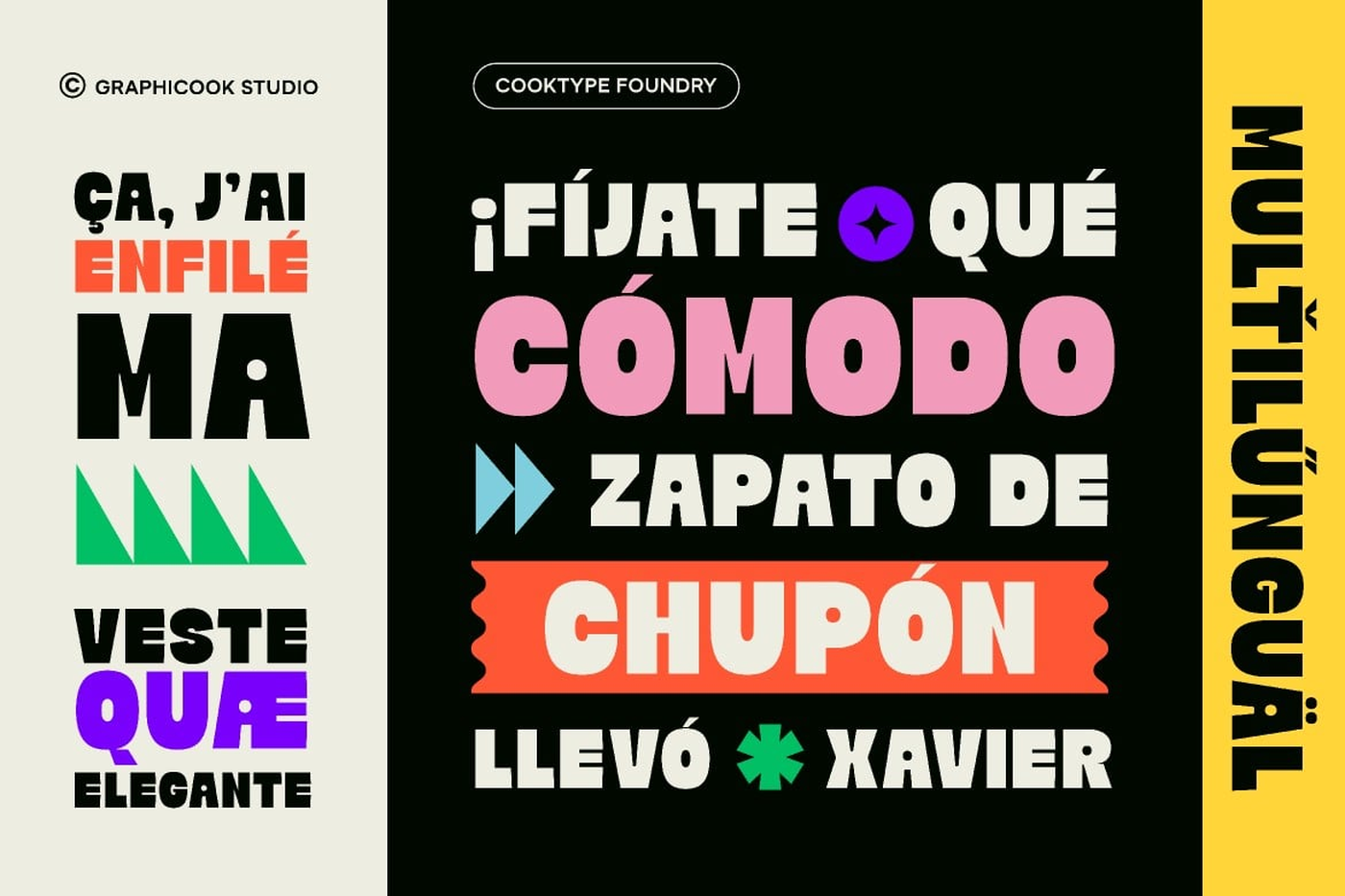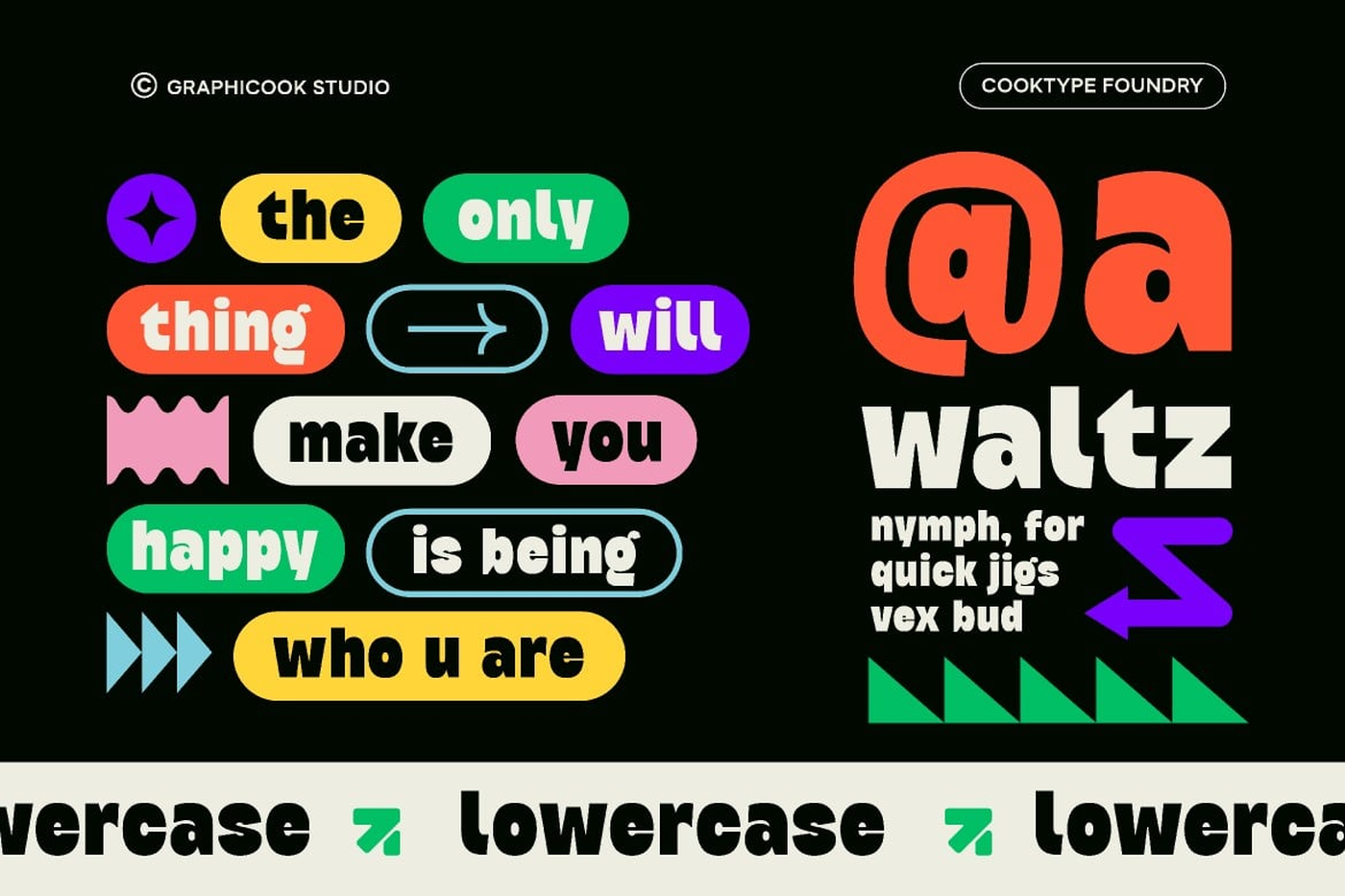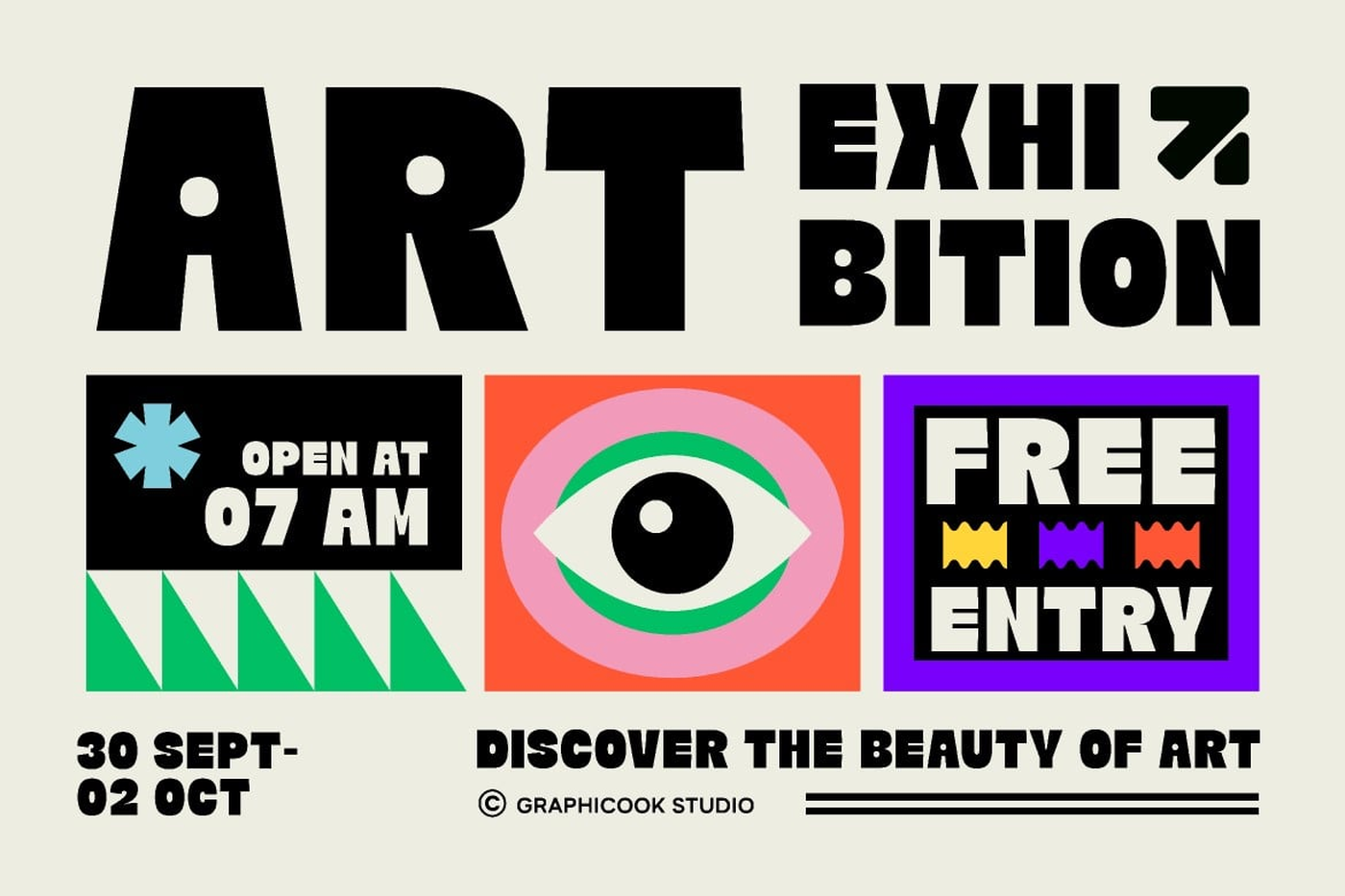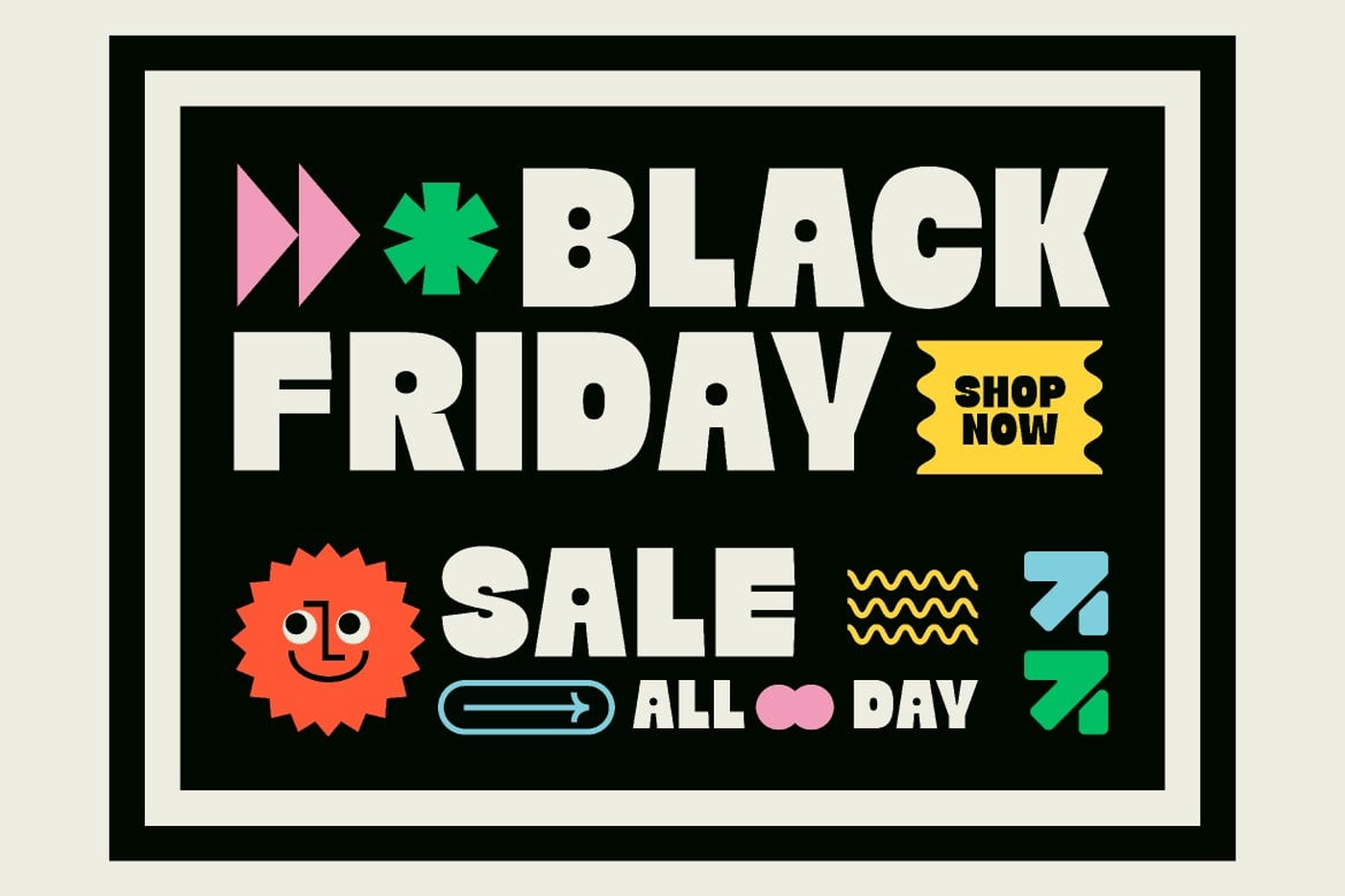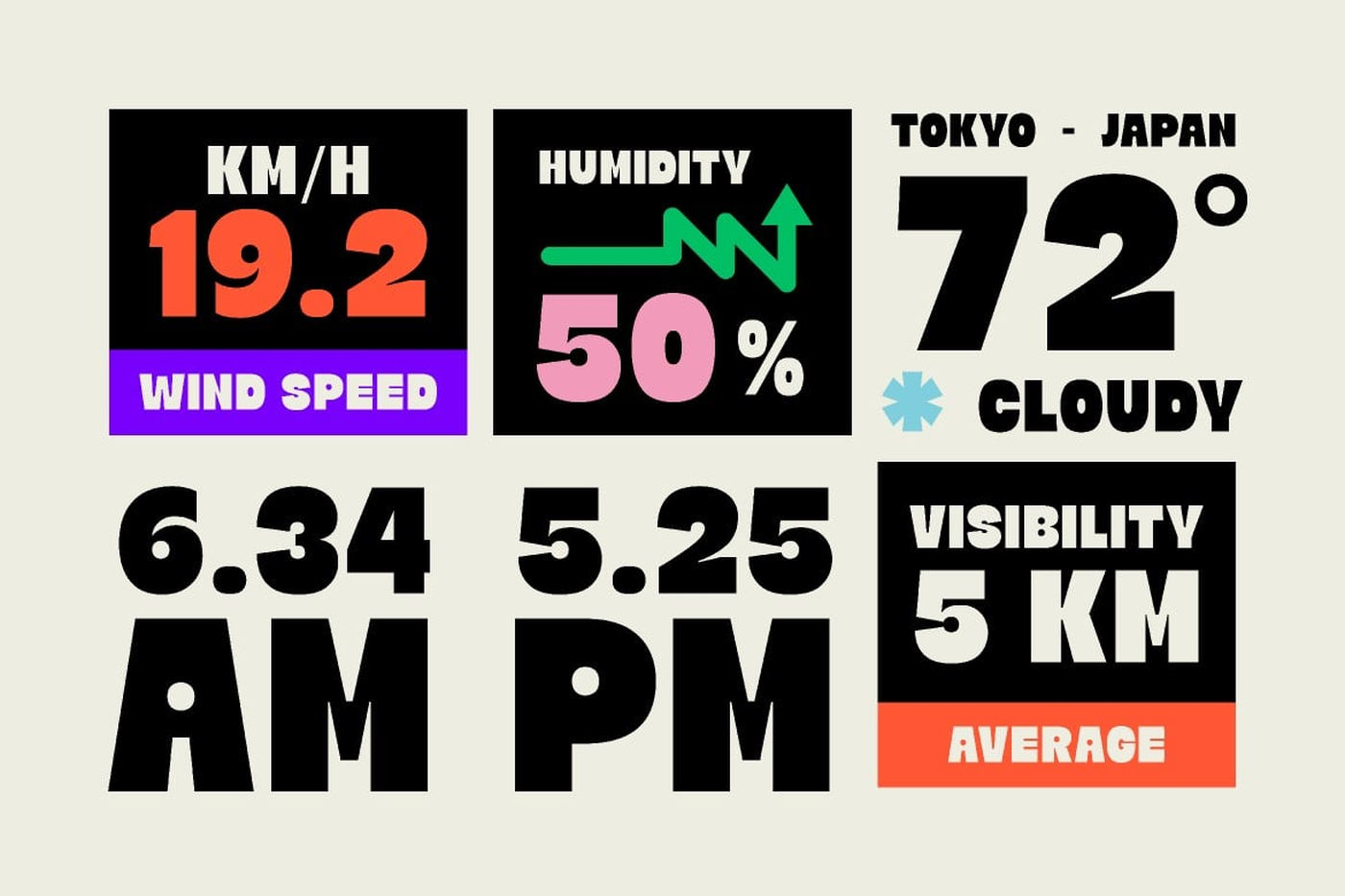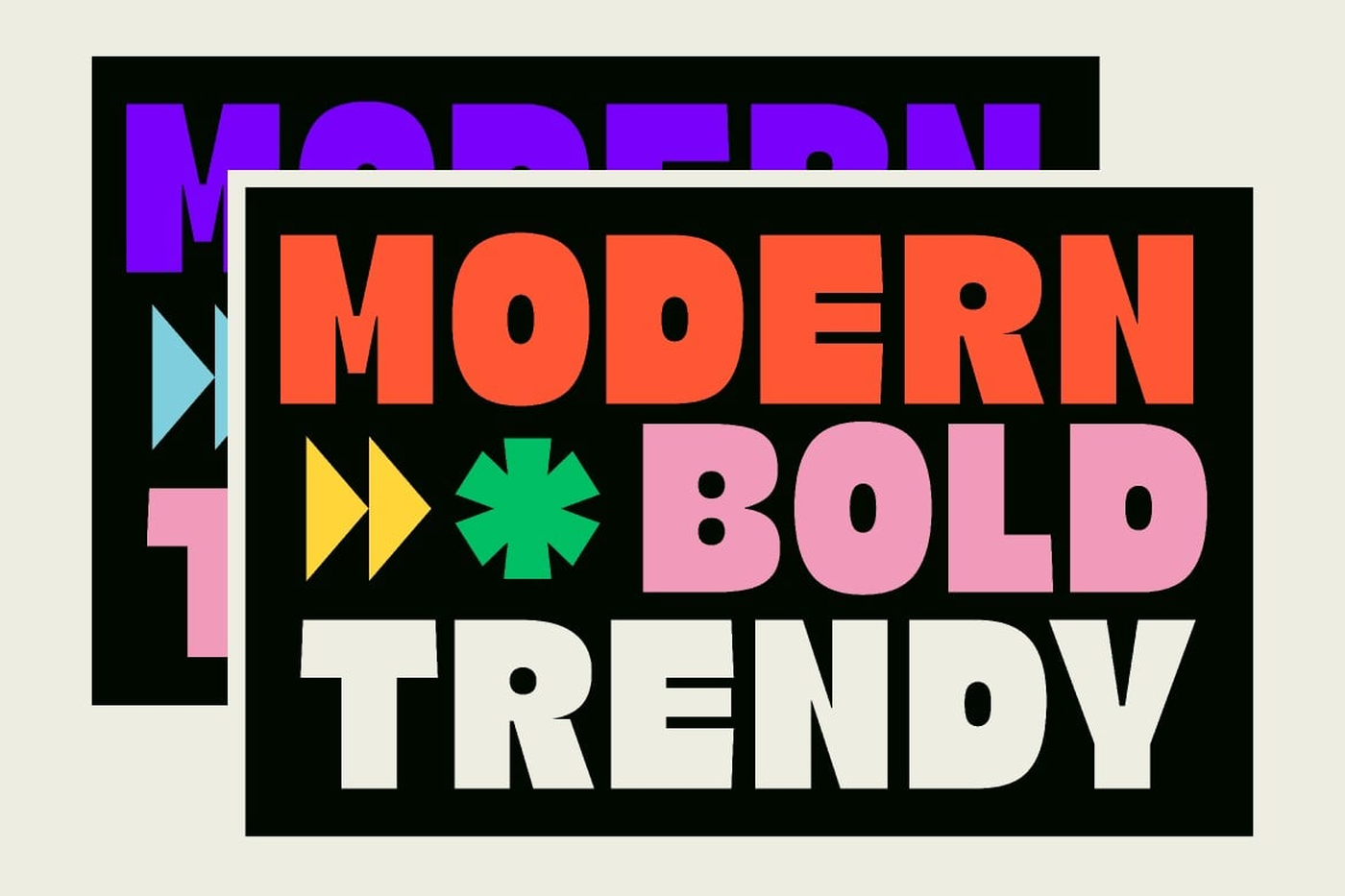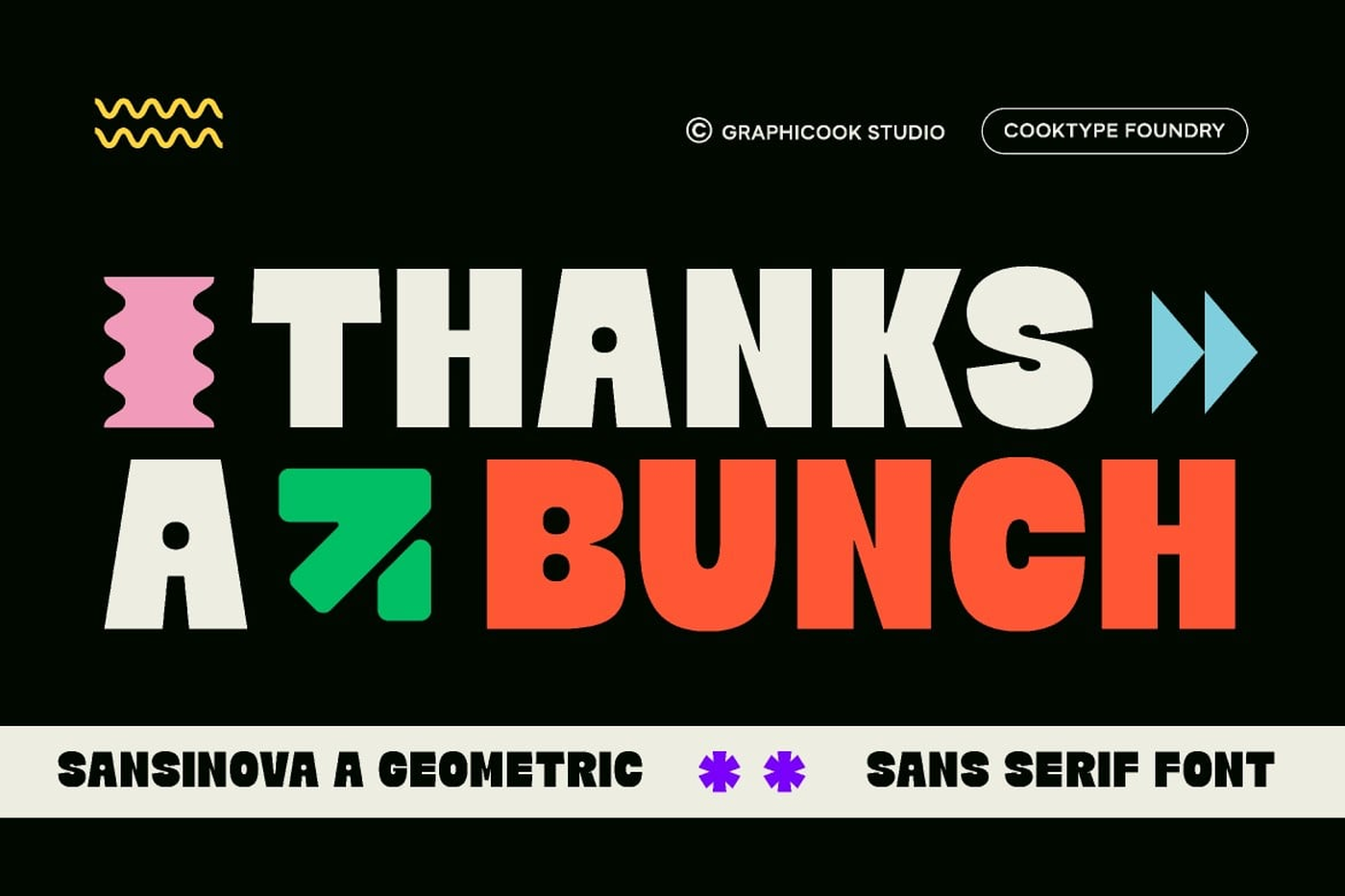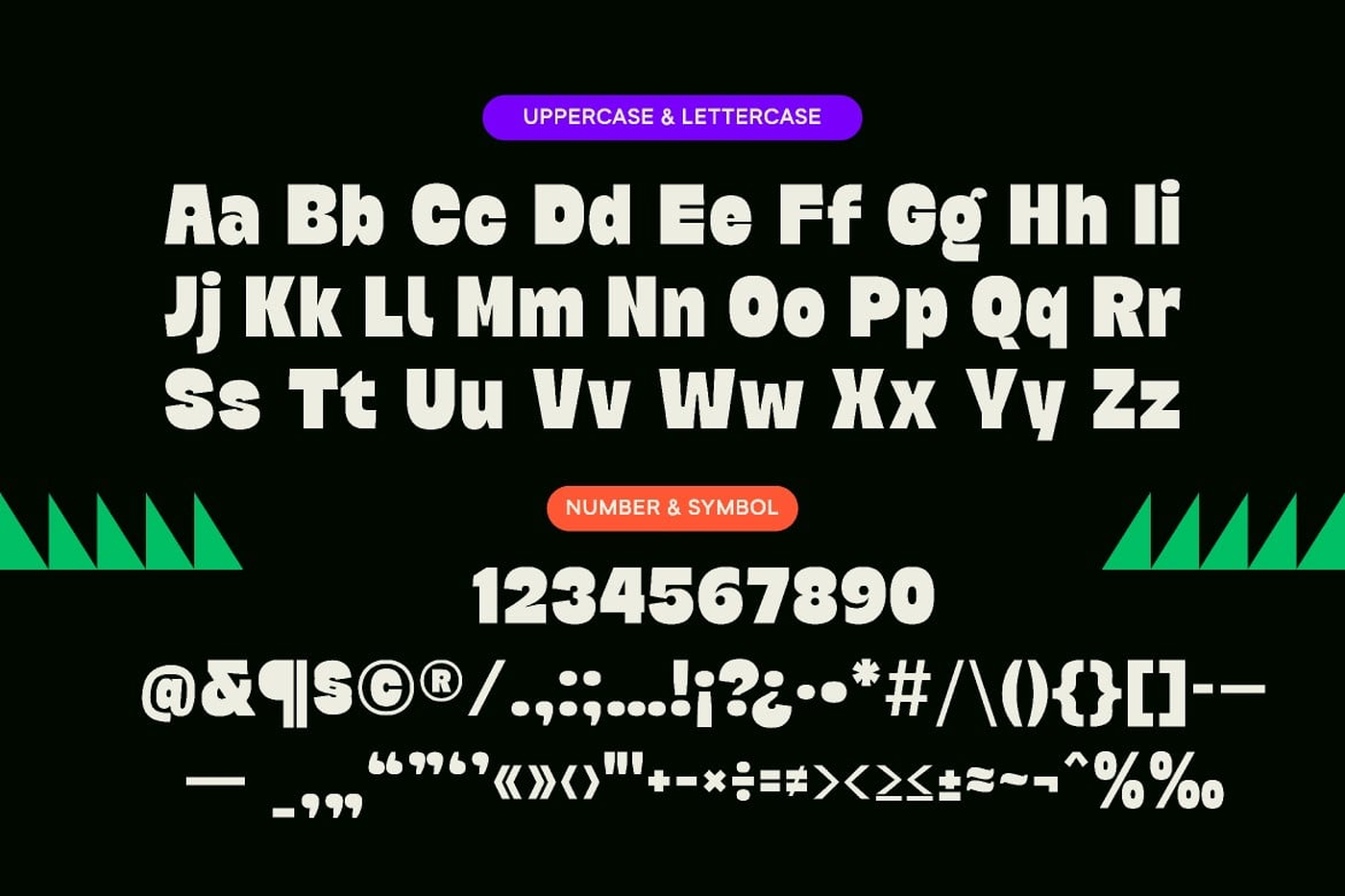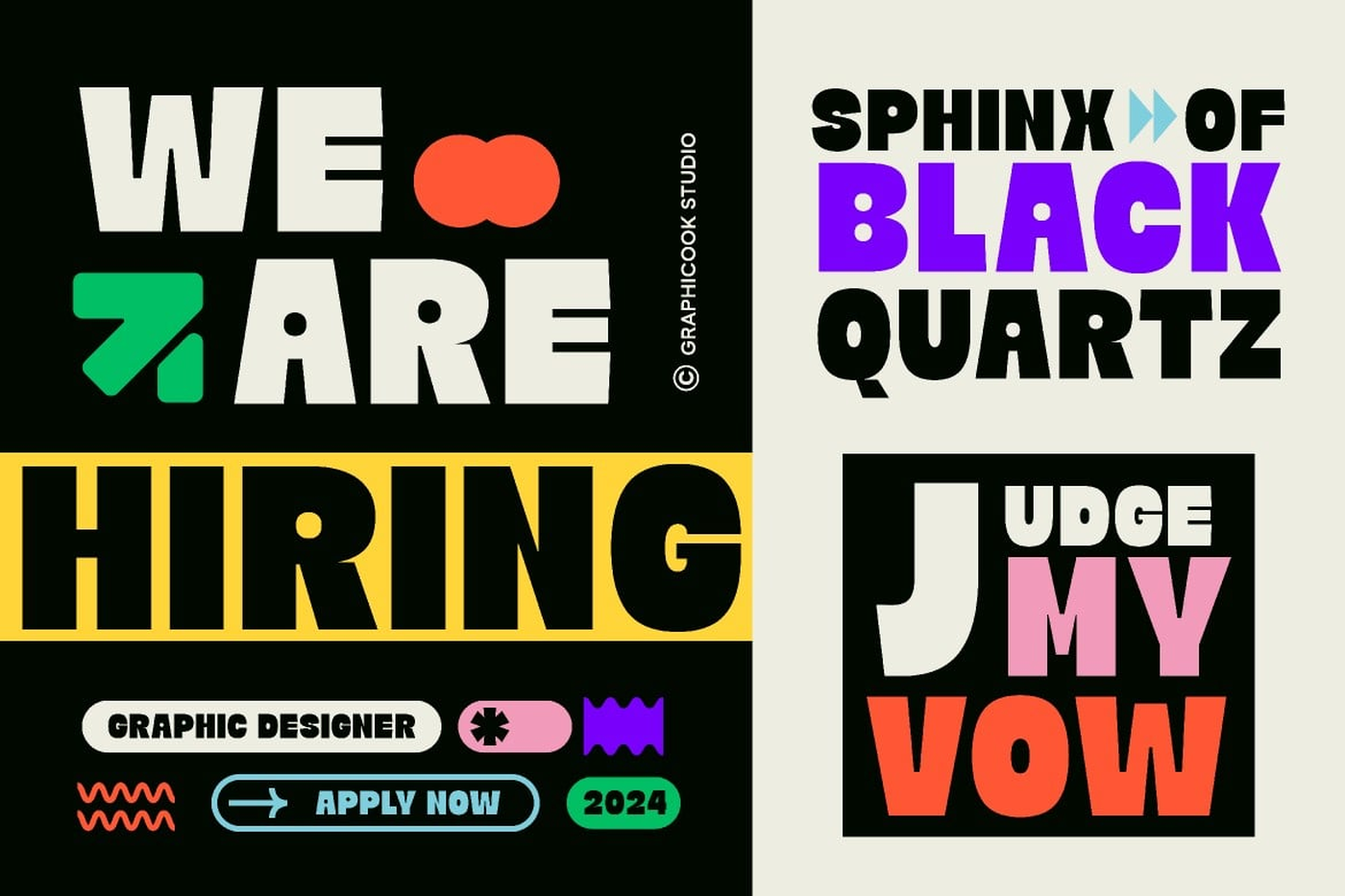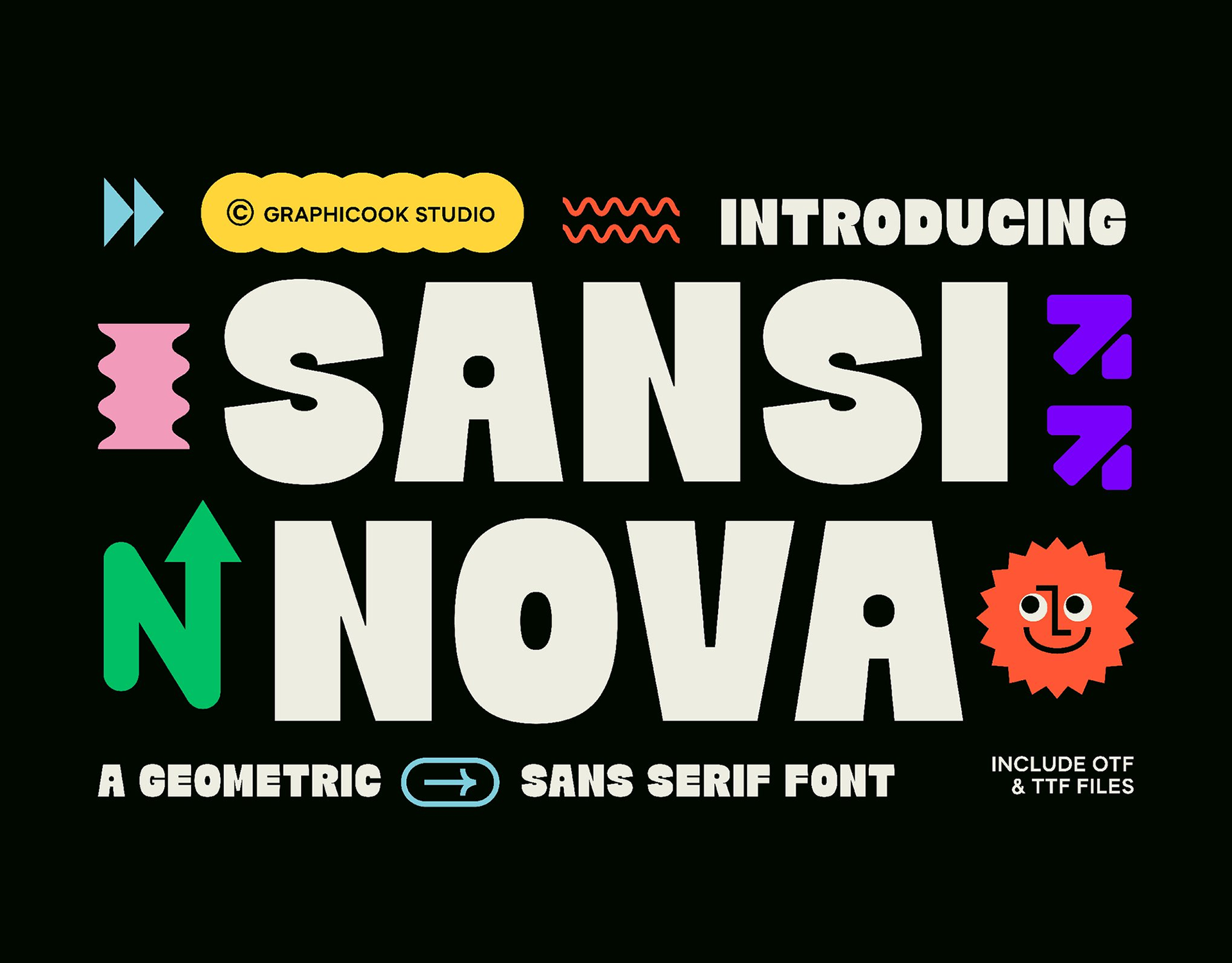
Sansinova - Geometric Sans Serif Font
This sans serif font exudes a vibrant touch of color and playful charm, making it an ideal choice for all your design needs.